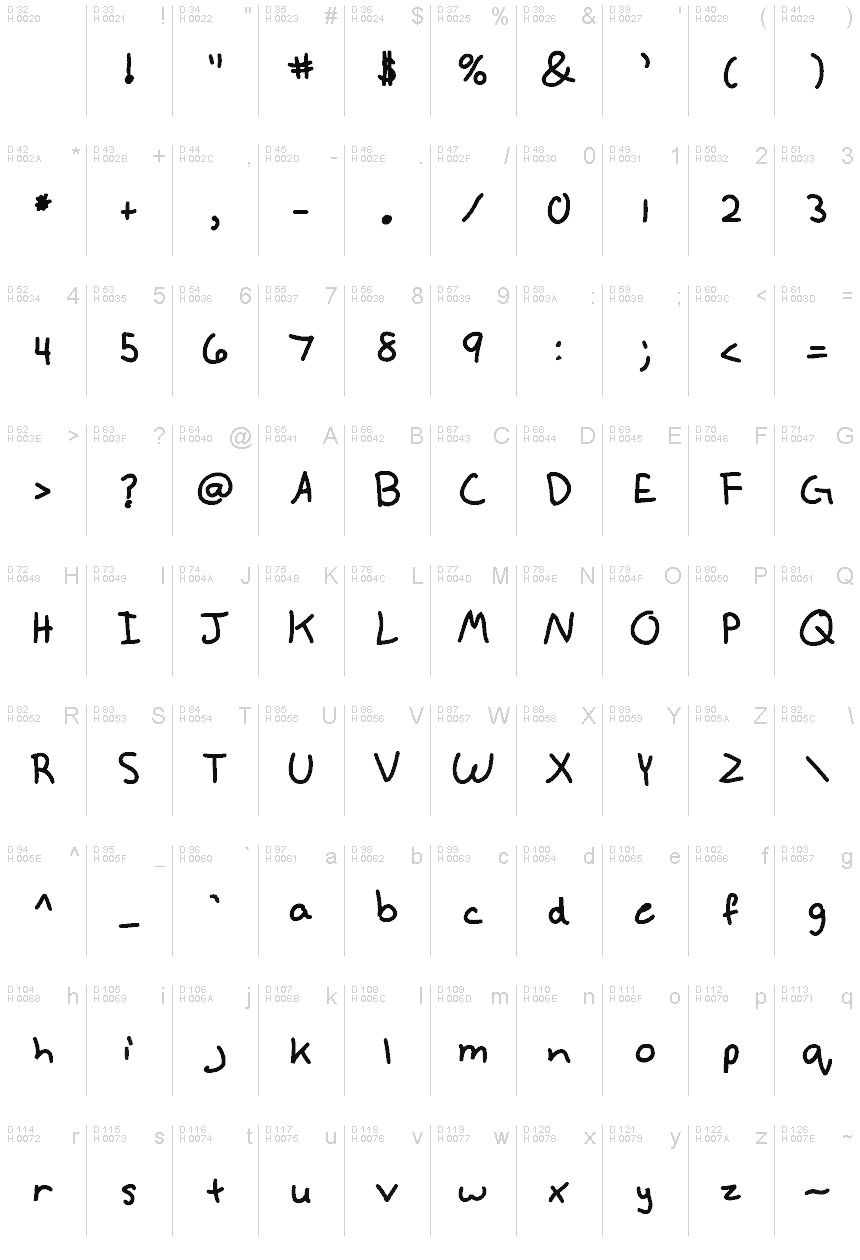
AnnekeBold Medium
"Anneke" is a font based on a handwriting sample from a young girl of the same name. She says: Im 12 years old and will use all the proceeds from this font for my college fund. Thanks for your contribution!
Anneke
AnnekeBold Medium